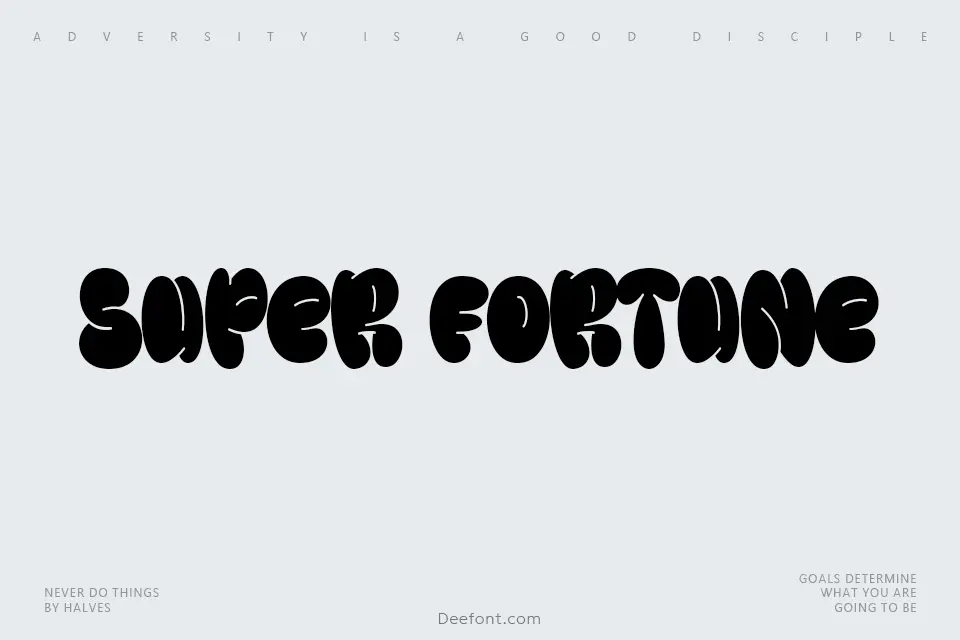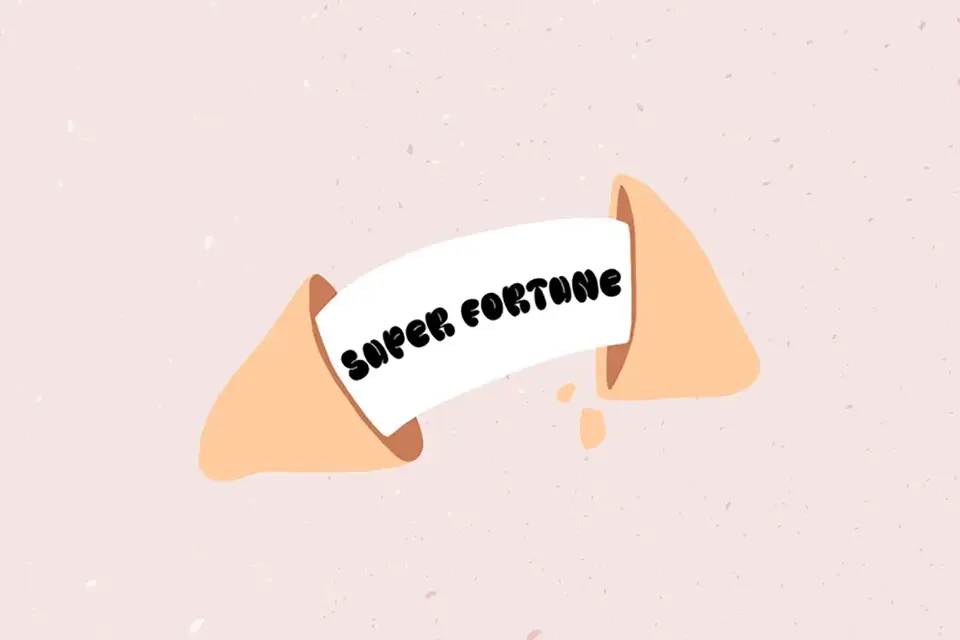
Super Fortune Font
Super Fortune is a vibrant graffiti-inspired script font that transforms ordinary text into expressive artistic designs. Featuring bold, thick lettering with a retro-futuristic character, this playful typeface combines whimsical energy with exceptional visual impact, making it ideal for social media graphics, apparel designs, posters, flyers, logos, and book covers. Each character maintains its unique identity while sharing a cohesive structure perfect for creative projects seeking dynamic, eye-catching typography.